O in Bubble Letters Step-by-Step Guide for Beginners
The art of drawing o in bubble letters is simple, fun, and creative. Many beginners start with this letter because it has a round shape that is easy to design. You can use it for school projects, posters, logos, and even social media art.
Learning how to draw o in bubble letter helps you understand the basics of bubble writing. It builds your confidence and improves your lettering skills fast.
What Are Bubble Letters?
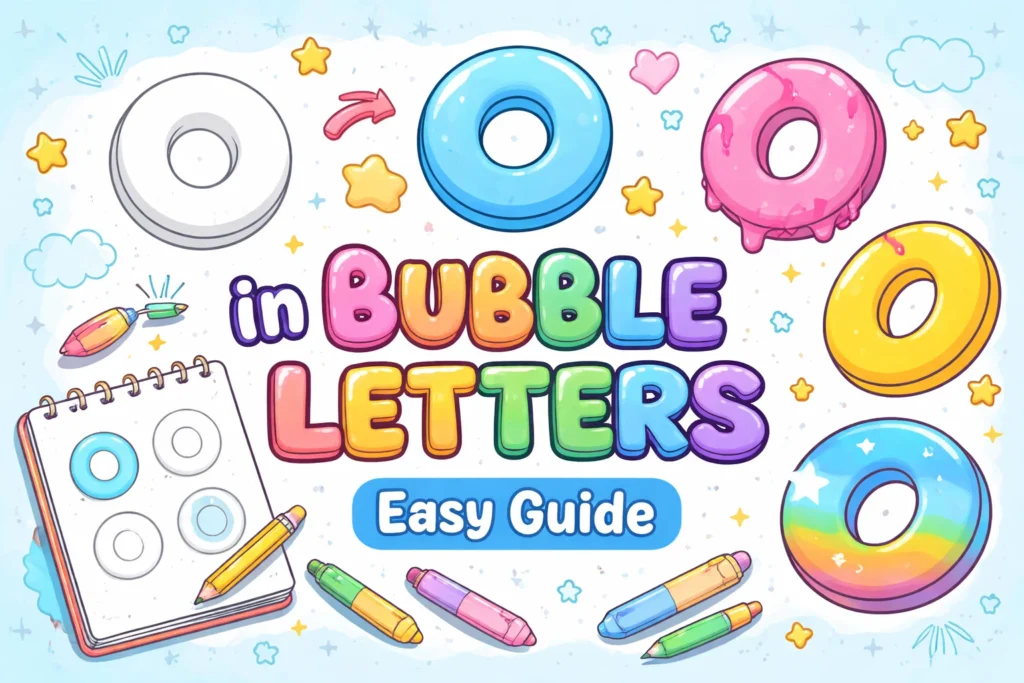
Bubble letters are a style of writing where each letter looks soft, round, and bold. These letters often look like they are made of bubbles. They are thick, smooth, and playful in appearance.
When you draw o in bubble letters, you focus on making the shape big, rounded, and eye-catching. This style is popular in graffiti, kids’ art, and decorative writing.
Why Start With o in Bubble Letters
The letter “O” is one of the easiest letters to learn. It has no sharp edges or corners. This makes it perfect for beginners who want to practice bubble lettering.
When you master o in bubble letter, you can easily move on to other letters. The same round technique works for letters like C, Q, and G.
Step-by-Step Guide
Drawing o in bubble letter is simple when you follow clear steps. Start with a light pencil so you can fix mistakes easily.
First, draw a big circle as your base shape. Then draw another smaller circle inside it to create thickness. Next, smooth the edges to make them look soft and round. Finally, trace the shape with a marker and erase extra lines.
This simple method helps you create clean and bold bubble letters every time.
Common Styles
| Style Type | Description | Best Use |
|---|---|---|
| Classic Bubble | Smooth and round shape | School work |
| Graffiti Style | Bold and edgy look | Street art |
| 3D Bubble | Shadow and depth added | Posters |
| Cartoon Bubble | Fun and playful design | Kids art |
| Decorative Bubble | Patterns inside letter | Creative projects |
Tips to Improve Your Skills
Practice is the key to mastering bubble letters. Always start with simple shapes and slowly add details.
Use light strokes at first and then go over them with a darker pen. This helps you avoid mistakes and improves your control.
Keep your lines smooth and round when drawing o bubble letter. Avoid sharp edges because they break the bubble effect.
How to Add 3D Effects
Adding a 3D effect makes your letter stand out more. Start by choosing one side for the shadow. Then draw lines extending from the edges of your letter.
Fill the shadow area with a darker colour. This creates depth and makes your o bubble letter look more professional.
You can also add highlights using white space to give a shiny look.
Colour Ideas
Colour plays an important role in making your bubble letters attractive. Bright colours like red, blue, and yellow make your design pop.
You can also use gradients to blend two colors together. This adds a smooth and modern effect to your o bubble letter.
Try adding outlines in black or white to make the letter stand out more.
Creative Uses
You can use o bubble letter in many creative ways. It works well for posters, banners, and greeting cards.
Students often use bubble letters for school projects because they look neat and fun. Designers use them for logos and branding.
This simple letter can turn any plain design into something eye-catching.
Mistakes to Avoid
Many beginners make small mistakes when drawing bubble letters. One common mistake is making lines too thin. Bubble letters should always look thick and bold.
Another mistake is uneven spacing. Keep your shapes balanced when drawing o bubble letter.
Avoid rushing your work because it can make your lines messy and unclear.
Practice Exercises for Beginners
You can improve your skills with simple exercises. Draw the letter “O” again and again using different sizes.
Try adding patterns like dots, stripes, or stars inside your o in bubble letters. This helps you explore your creativity.
Practice shading and coloring to make your designs more interesting.
Advanced Techniques for Better Results
Once you learn the basics, you can try advanced techniques. Add shadows, highlights, and textures to your letters.
Use digital tools if you want to create designs on a computer. Many apps allow you to draw o bubble letter with ease.
Combining hand drawing and digital editing gives the best results.
| Material | Purpose |
|---|---|
| Pencil | Sketch base shape |
| Eraser | Fix mistakes |
| Marker | Outline letter |
| Colored Pens | Add color |
| Paper | Drawing surface |
How Kids Can Learn
Kids enjoy drawing because it feels like play. Bubble letters are perfect for children because they are simple and fun.
Start by teaching them to draw a circle. Then guide them to turn it into o bubble letter.
Conclusion
Drawing o in bubble letters is a simple yet powerful way to explore creativity. It is easy to learn and fun to practice for beginners and kids. With regular practice, you can create bold and attractive designs that stand out.
Focus on smooth shapes, proper spacing, and creative colouring to improve your skills. Keep experimenting with styles and effects to make your work unique. Once you master this letter, you will find it easier to draw other bubble letters with confidence.